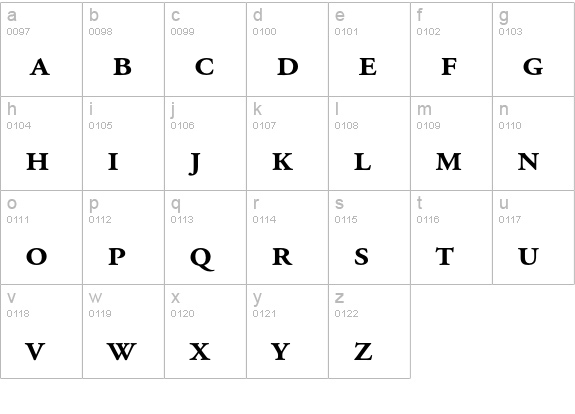
Adobe Garamond Semibold Small Caps & Oldstyle Figures Font Details
Adobe Garamond Semibold Small Caps & Oldstyle Figures is a sub-bold, structured variant in the Adobe typeface family \xE2\x80\x94 well suited to sub-headlines and emphasised passages.
Adobe Garamond Semibold Small Caps & Oldstyle Figures font is a sophisticated and elegant typeface that exudes a timeless charm. The balance between the boldness of the Semibold weight and the delicate small caps and oldstyle figures creates a harmonious and versatile design perfect for a wide range of applications. The intricate details of this font showcase the craftsmanship and meticulous attention to detail that Adobe is known for. The small caps add an air of sophistication, while the oldstyle figures bring a classic and refined touch to any project. What makes this font even more appealing is that it is available for free download at FontsMarket.com. This means that you can access this high-quality typeface without any cost, making it a valuable addition to your font library. Whether you are working on a print design, branding project, or digital media, Adobe Garamond Semibold Small Caps & Oldstyle Figures font will elevate your work with its timeless elegance and versatility. Download it now for free and enhance your designs with this exquisite typeface.